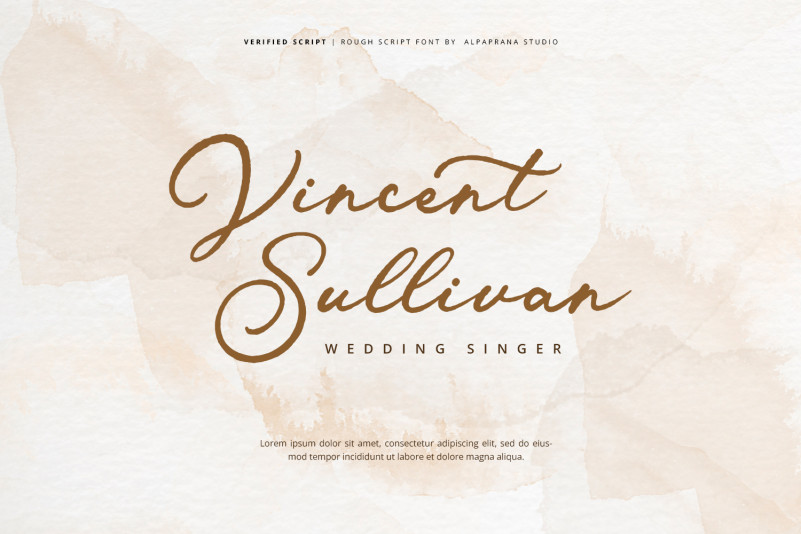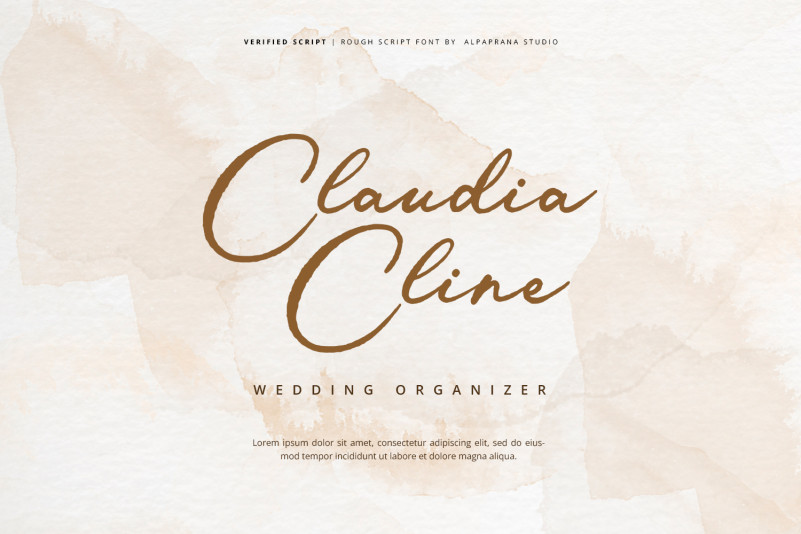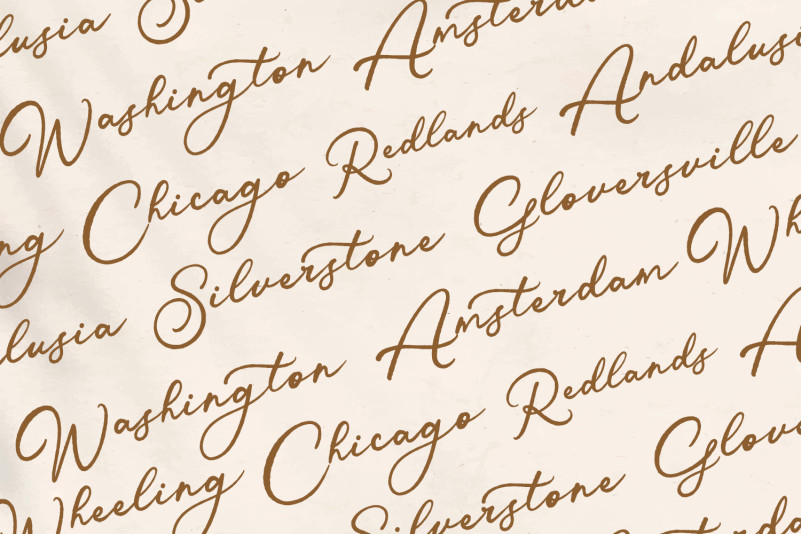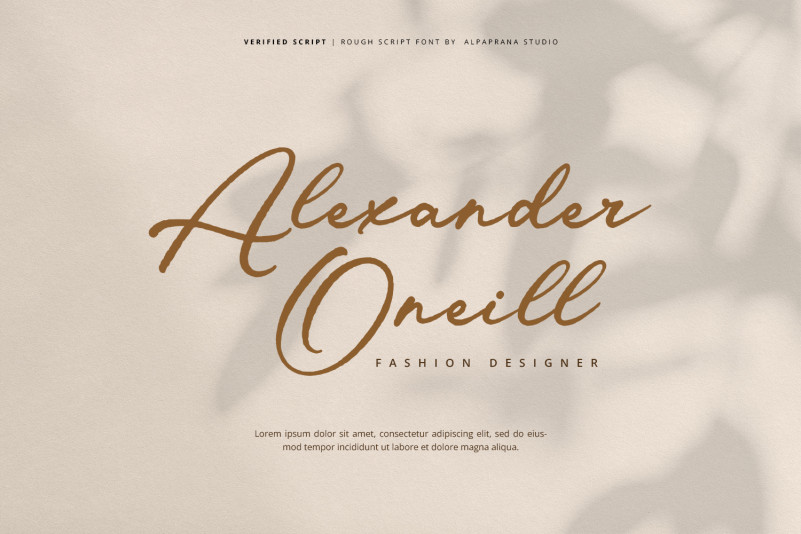
Verified Script Font
Verified Script Font is a rough script font with natural and clasic feels. It will be perfectly used for Branding, Logo Design, Lettering, Logotype, Clothing, Poster, magazine, packaging, posters, shopping bags, t-shirts, book covers, photography, special events and other design project.